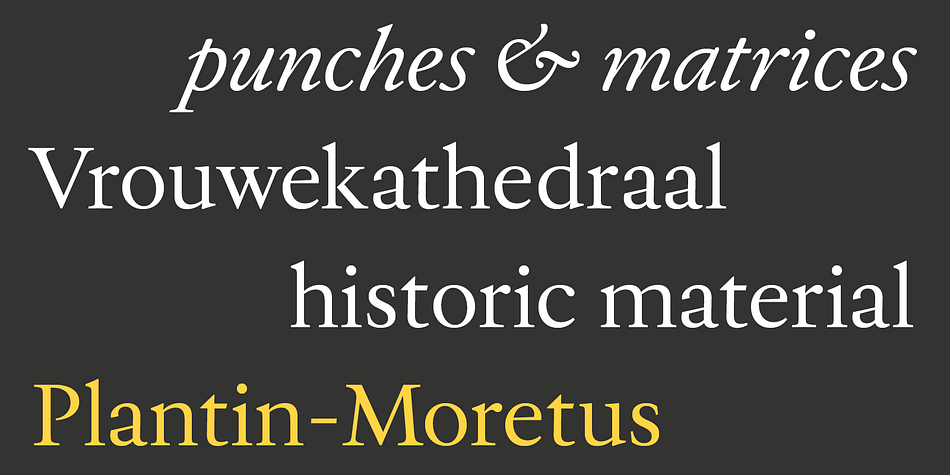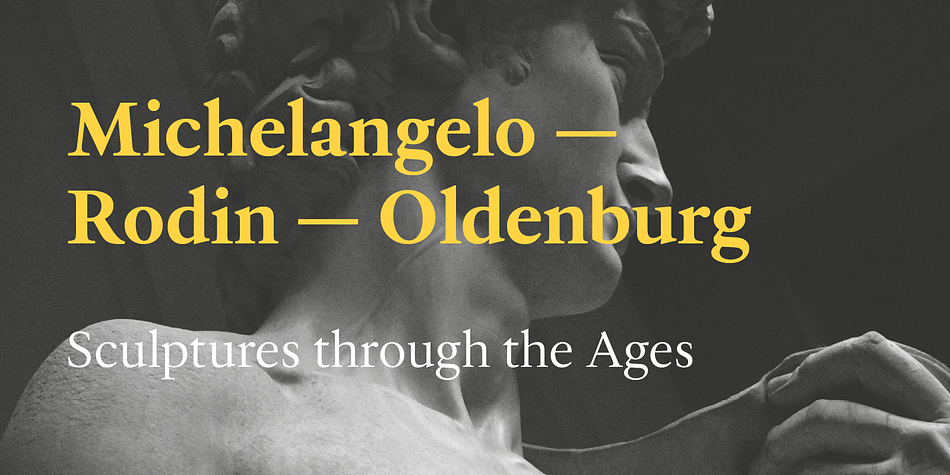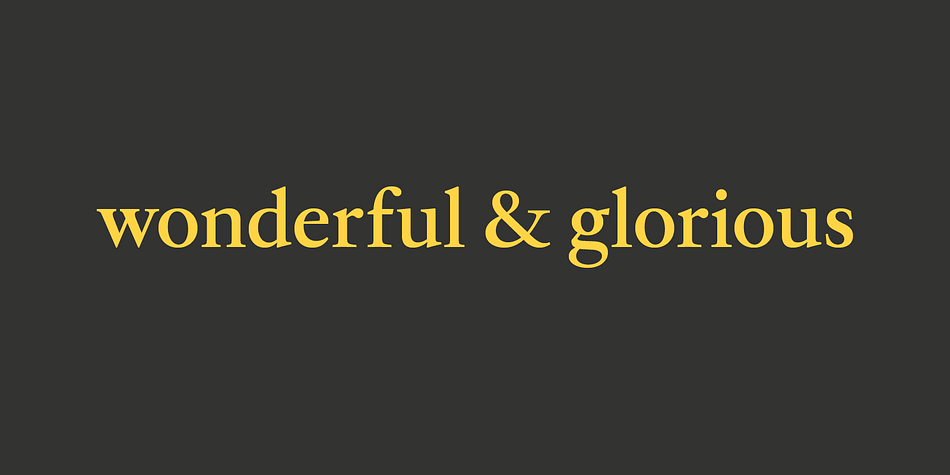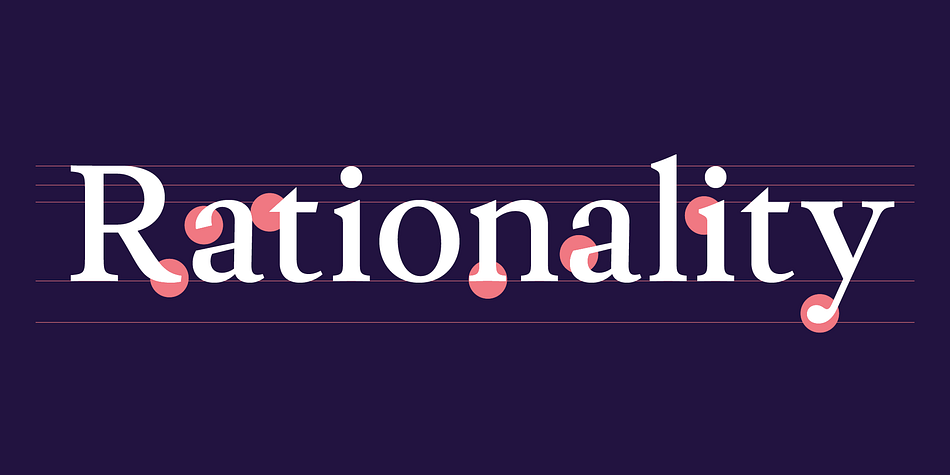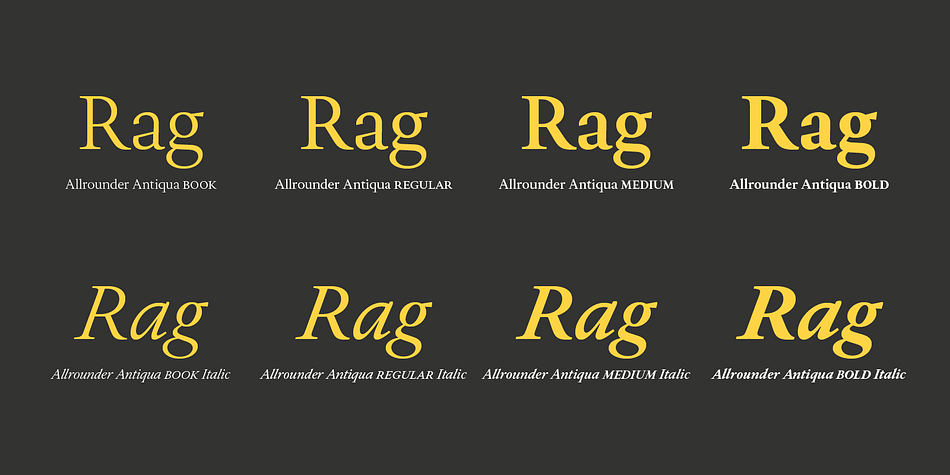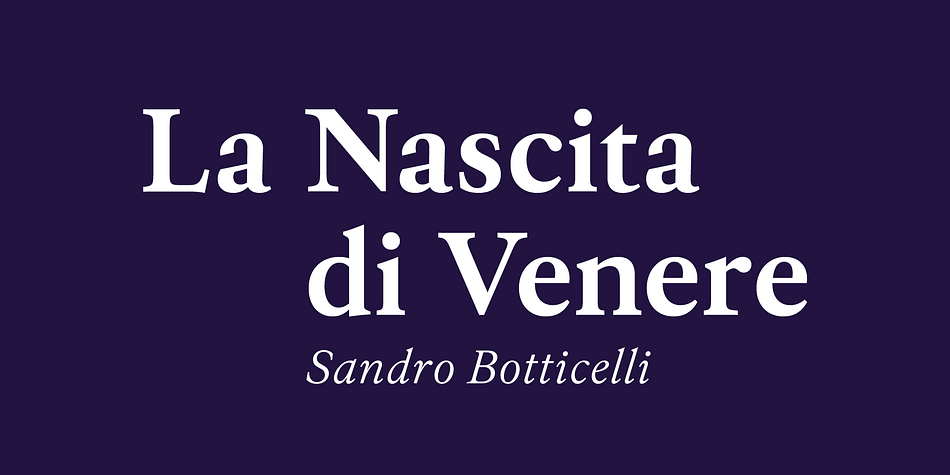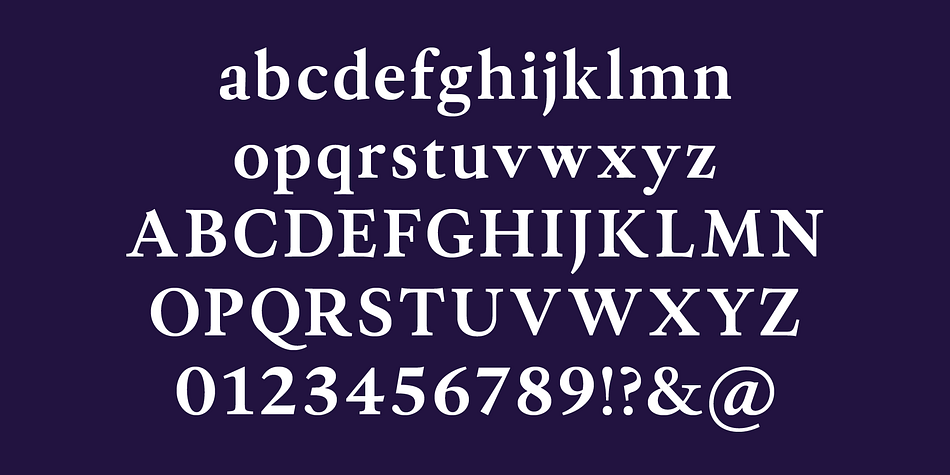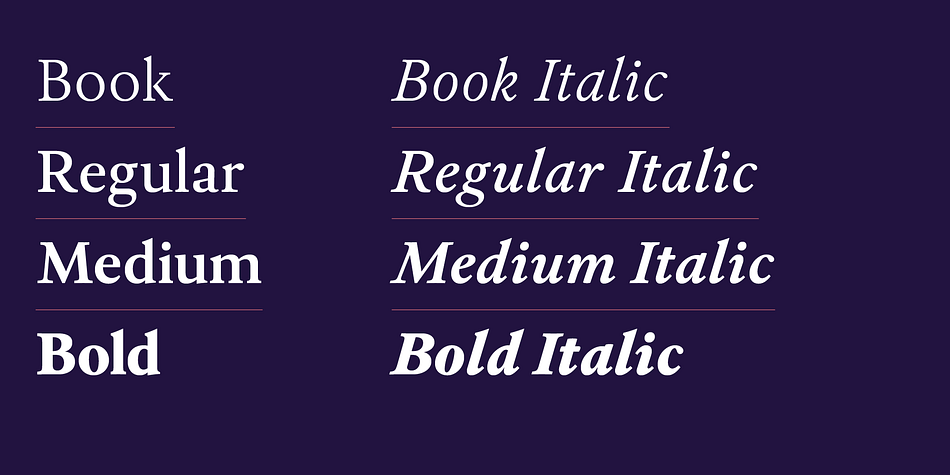
Designed by Moritz Kleinsorge, Allrounder Antiqua is a serif font family. This typeface has eight styles and was published by Moritz Kleinsorge.
Allrounder Antiqua is an old-style serif member of the Allrounder superfamily. A timeless typeface based on classical proportions, Allrounder Antiqua is perfectly suitable for advanced book and editorial design well as packaging and branding.
True: its main purpose is to set flawless body copy and to generate an evenly textured page—but its refined shapes work fantastically in display applications, too. Some details, such as the small and sharp bowl of the lowercase a, are fully appreciated in large sizes only. If you need a sophisticated serif typeface for packaging, food, fashion, consumer goods, or lifestyle branding, Allrounder Antiqua is up for it. It’s also apt as an outstanding corporate typeface, be it for a more conservative venture or the latest hipster start-up.
This classy serif typeface comes in four weights with corresponding true italics. Just like its sans-serif counterpart, Allrounder Grotesk, Allrounder Antiqua is equipped with plenty of Opentype Features like small caps, six sets of figures, case-sensitive forms, superiors, fractions and many ligatures. You will find alternate letters with swashes within this extended character set, as well as all the accented glyphs necessary to support more than 200 Latin-based languages.
Historical Background
The (French) Renaissance-influenced typeface started as Moritz Kleinsorge’s graduation project within the “Expert Class Type design” course of the Plantin Institute for Typography, located in the famous Museum Plantin-Moretus in Antwerp, Belgium. There, Moritz Kleinsorge decided to create a revival of Robert Granjon’s “Ascendonica Romain”, described as “a beautiful face; typical of Granjon’s mature style” in the inventory list of available material. “To touch punches and matrices cut by Robert Granjon back in 1567 was an invaluable inspiration”, Moritz explains. Over time, the typeface moved away from being a true revival. Rather, it evolved into a Granjon-inspired typeface. That typeface is now available as Allrounder Antiqua.
Perfect Pairing: Allrounder Antiqua + Allrounder Grotesk
Allrounder Grotesk is the ideal complement to Allrounder Antiqua. They both share common vertical metrics and a common color. This allows you to pair both typefaces within the same layout—even within the same paragraph—without creating visual disruption. Head over to the Family Page of Allrounder Grotesk to get more information about this typeface.
Design Trick: Bilingual Design With the Allrounder Superfamily
Combining Allrounder Grotesk with Allrounder Antiqua is an ideal approach for bilingual designs, wherein both languages get the same emphasis yet are distinguished with two different typefaces. It’s also best practice to set headlines in a different typeface than the body text if they harmonize with each other. Allrounder Grotesk and Allrounder Antiqua provide you with the perfect pair for this purpose.